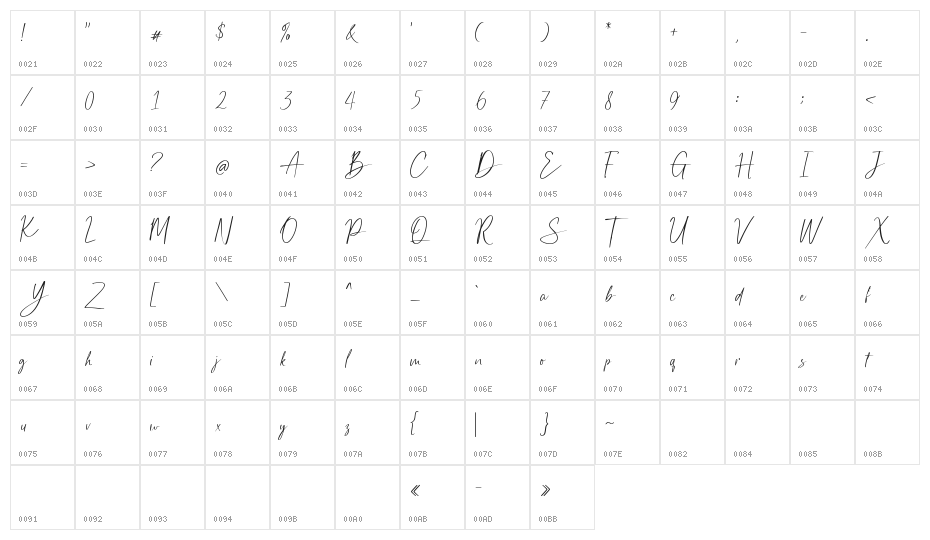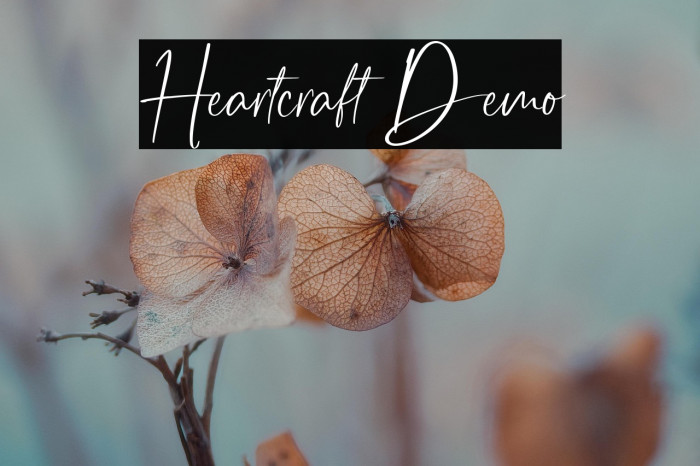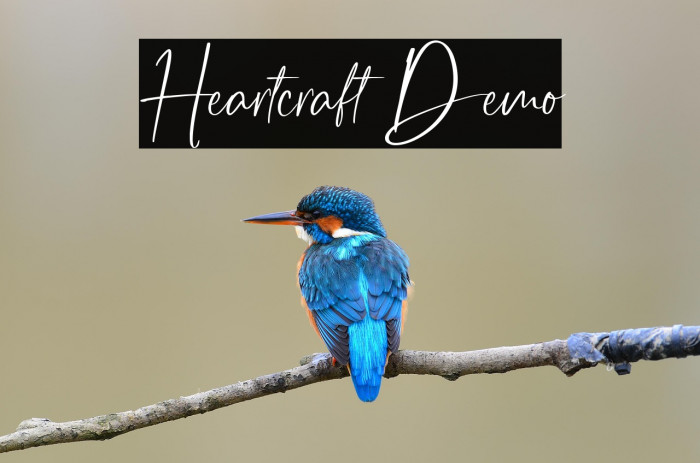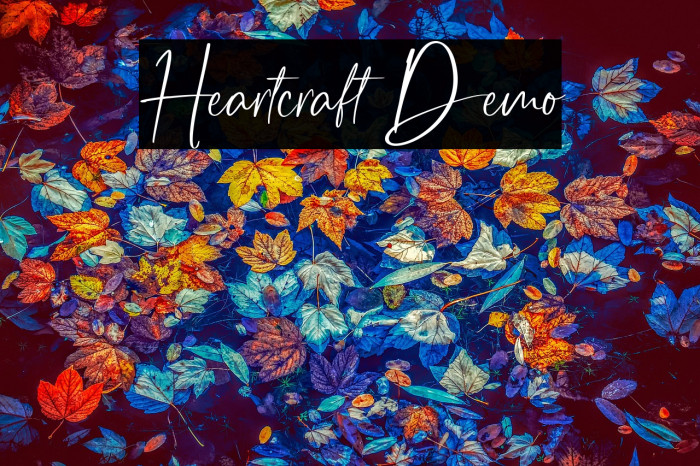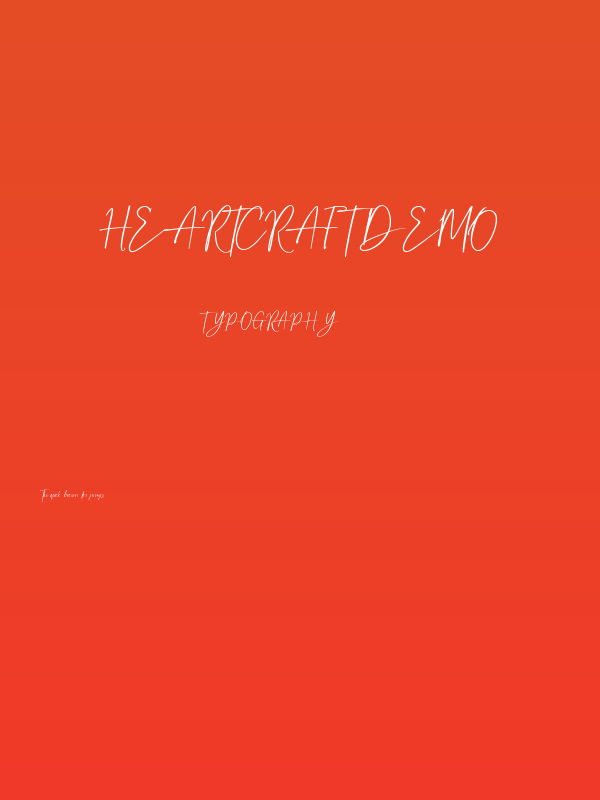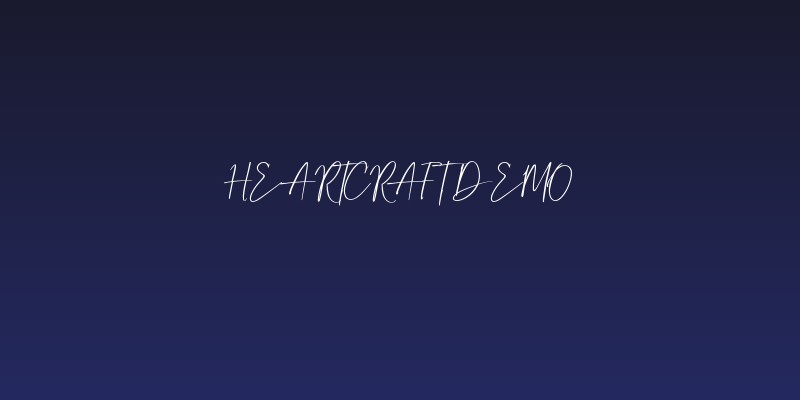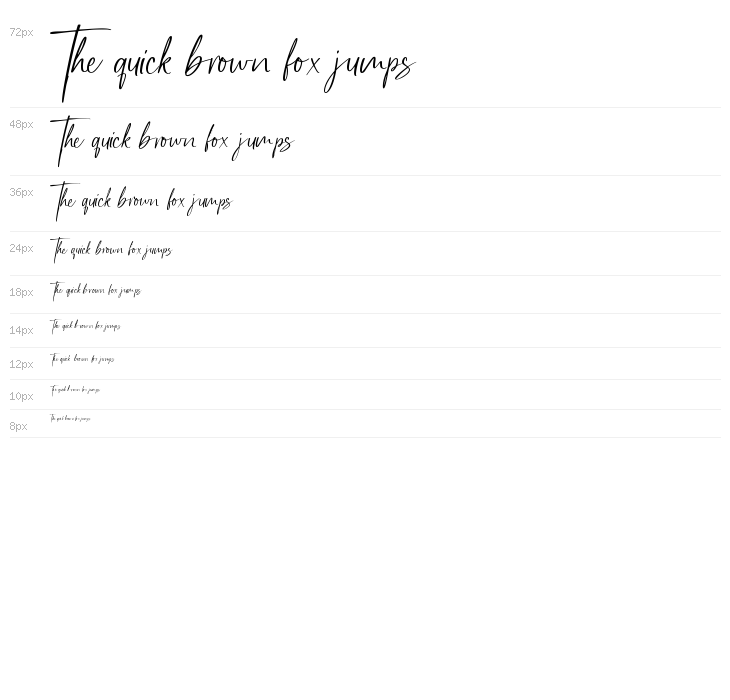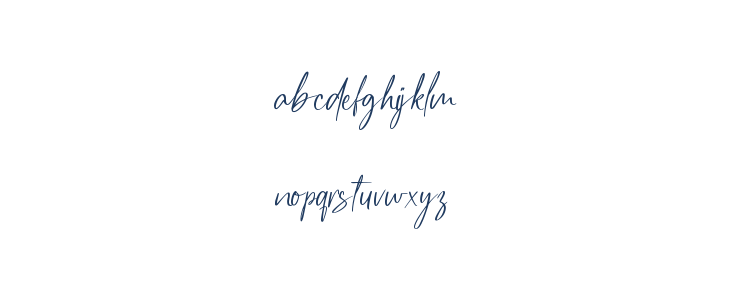
Heartcraft Demo Font
Heartcraft Demo Description
This font exudes a charming and whimsical handwritten style, characterized by its flowing, cursive letterforms. The uppercase letters are tall and elegant, with a slight slant that adds a dynamic feel. The lowercase letters maintain a consistent style, featuring loops and curves that enhance the handwritten aesthetic. The numbers are clear and legible, following the same cursive style, making them suitable for various applications. Special characters are thoughtfully designed to match the overall style, ensuring a cohesive look across all text. The font's thin strokes and delicate lines give it a light and airy appearance, perfect for projects that require a personal touch.
| Proposed Projects | Ideal for wedding invitations, greeting cards, personal branding, and creative projects that require a personal touch. |